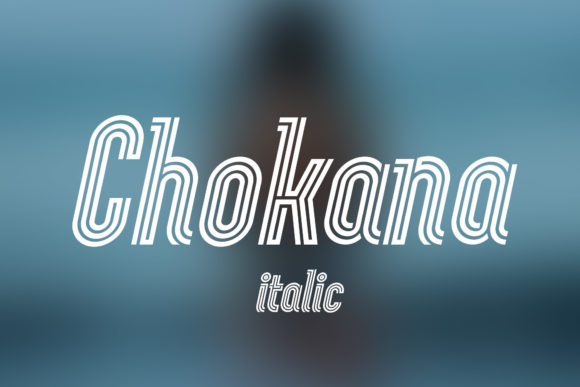
Ascend your designs to new heights with Chokana Italic, a captivating display font that exudes a charming retro vibe. Inspired by the groovy aesthetics of the 70s, Chokana Italic evokes a sense of nostalgia that will transport you back in time. With its unique multi-line structure, this font possesses an undeniable allure that will make your designs shine.
Embark on a creative journey with Chokana Italic, the ultimate font for crafting business logos that leave an unforgettable impression. Its meticulously crafted characters, reminiscent of vintage signage, will add a touch of elegance and sophistication to your brand identity. Let your logo stand out from the crowd, radiating a timeless charm that captures the essence of your business.
Unleash your creativity and explore the endless possibilities that Chokana Italic presents. Whether you're designing marketing materials, social media graphics, or eye-catching website headers, this font will elevate your designs to new heights. Its versatility knows no bounds, making it the perfect choice for a wide range of projects.
With Chokana Italic at your disposal, you'll have the power to evoke emotions and create designs that resonate with your audience. Its nostalgic charm will transport viewers to a simpler time, while its modern twist ensures that your designs remain relevant and captivating. Embrace the beauty of the past and the excitement of the future with Chokana Italic.
Don't settle for ordinary fonts. Choose Chokana Italic, the font that ignites inspiration and propels your designs to greatness. Its unique style and versatility will transform your creative visions into stunning realities. As you watch your designs come to life, you'll realize that Chokana Italic is more than just a font; it's a gateway to a world of endless possibilities.